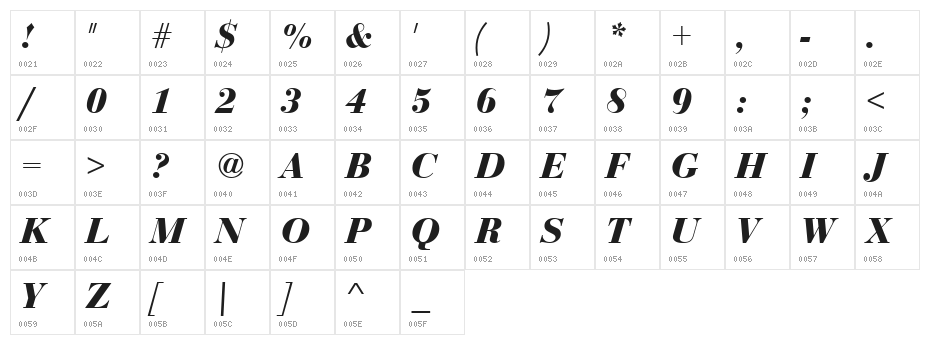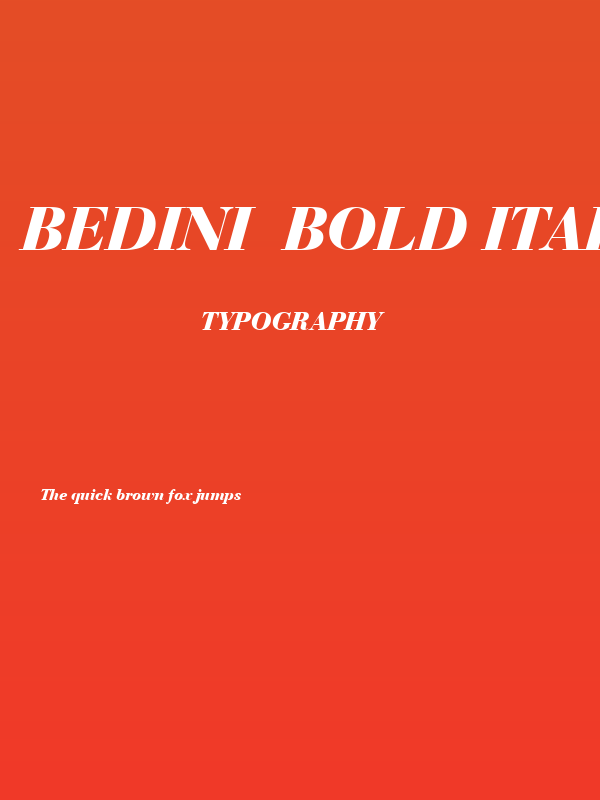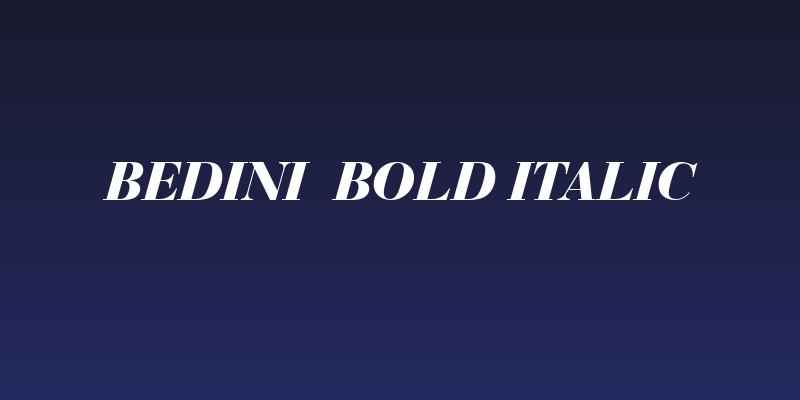
Bedini Bold Italic Font
Bedini Bold Italic Description
This font exhibits a bold and italicized style, characterized by its strong, dynamic strokes and elegant curves. The uppercase letters are prominent and commanding, while the lowercase letters maintain a consistent flow with a slight slant, enhancing readability. Numbers are bold and clear, making them suitable for impactful displays. The special characters are well-defined, adding versatility to the font's use. The overall design is sophisticated, combining traditional serif elements with a modern twist, making it suitable for a variety of applications.
| Use Case | Headlines, Logos, Editorial design |
| Proposed Projects | Ideal for branding, editorial design, book covers, and high-impact advertising. |